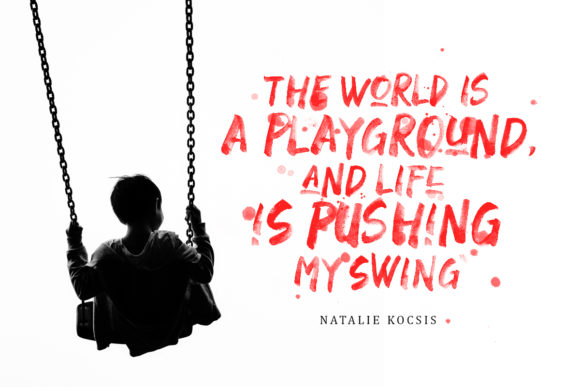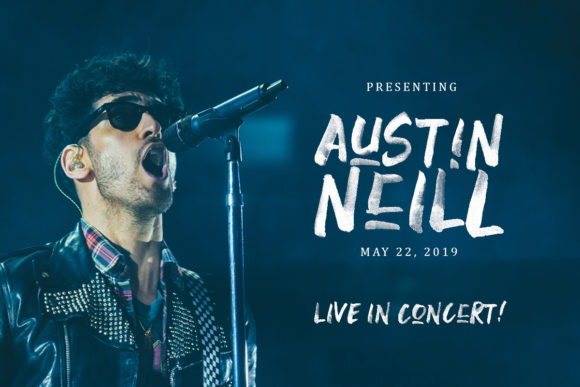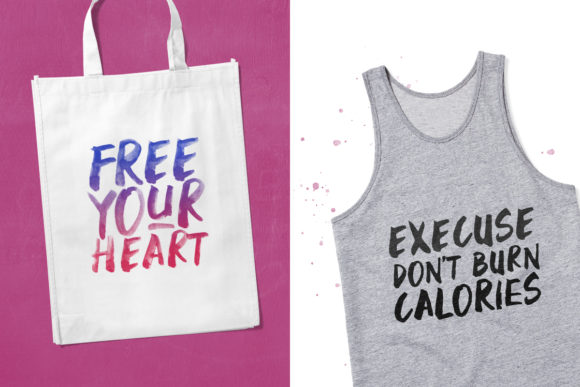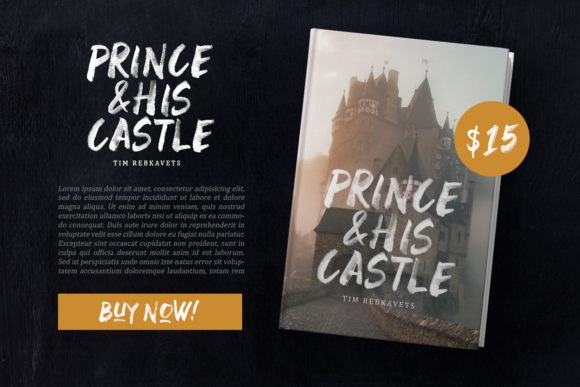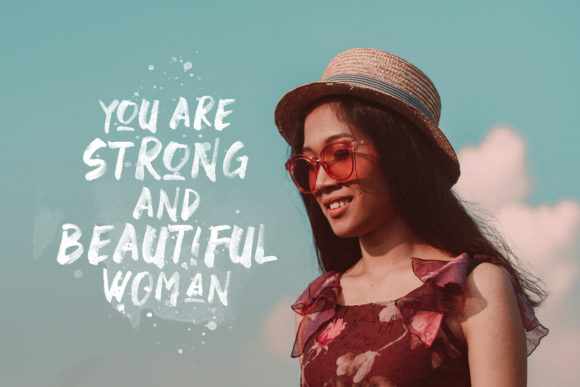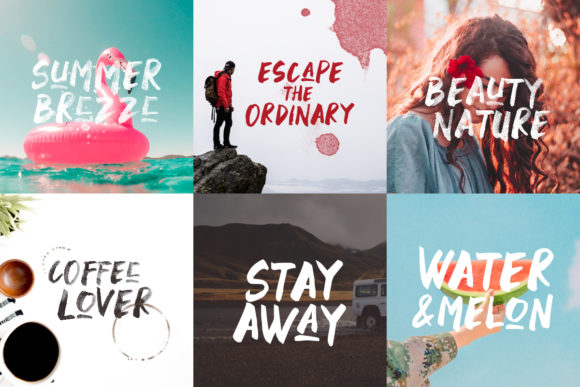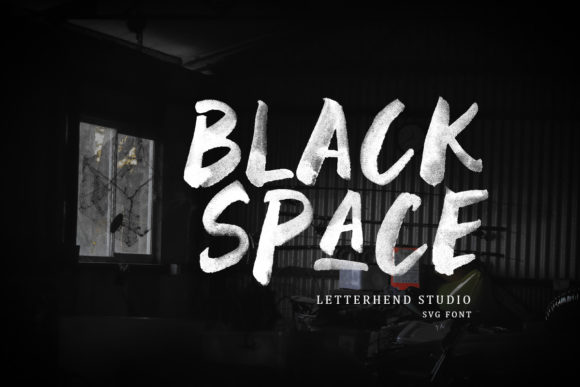
The Ultimate Guide to Black Space Font: Elevate Your Designs with a Cool and Bold Handwritten Style
I’ll never forget the time I was working on a project for a client who wanted a bold, eye-catching font to match their brand’s edgy personality. I scoured the internet for hours, trying out font after font, but nothing seemed quite right. That was until I stumbled upon Black Space Font. This cool and bold handwritten font instantly turned my design idea into a standout, and I knew I had found the perfect fit. In this article, I’ll share my experience with Black Space Font, its features, and how to make the most of it in your designs.
An Honest Review of Black Space Font
So, what makes Black Space Font so special? Let’s dive into the good stuff and a few quirks I’ve discovered.
What I Love About Black Space Font ✨
- 💥 **Bold and eye-catching**: Black Space Font is perfect for making a statement in your designs. Its bold lines and unique letterforms grab attention and add a touch of personality to any project.
- ✅ **Highly versatile**: Whether you’re working on a logo, poster, or social media graphic, Black Space Font adapts seamlessly to different design contexts.
- 🎨 **Handwritten charm**: The font’s handwritten feel adds a touch of warmth and approachability, making it perfect for brands that want to connect with their audience on a personal level.
While Black Space Font is an amazing addition to any design project, there are a few things to keep in mind:
- ⚠️ **Limited use in body text**: Due to its bold nature, Black Space Font is best used in headlines or titles. It may not be the most readable choice for longer blocks of text.
- 🤔 **Some characters may require manual kerning**: As with any font, you may need to adjust the kerning of certain character combinations to achieve optimal spacing.
The Backstory Behind Black Space Font
Black Space Font was designed with the goal of creating a bold, eye-catching font that would add a touch of personality to any design project. Inspired by the urban landscape and modern typography, this font is perfect for designers who want to make a statement. Whether you’re working on a logo, poster, or social media graphic, Black Space Font is sure to turn heads.
Q: What type of projects is Black Space Font best suited for?
A: Black Space Font is perfect for projects that require a bold, eye-catching font, such as logos, posters, social media graphics, and headlines.
Q: Is Black Space Font available in different weights or styles?
A: Currently, Black Space Font is available in a single weight. However, you can experiment with different font sizes, colors, and effects to achieve the desired look.
Q: Can I use Black Space Font in digital and print designs?
A: Absolutely! Black Space Font is versatile and can be used in both digital and print designs, from social media graphics to posters and flyers.